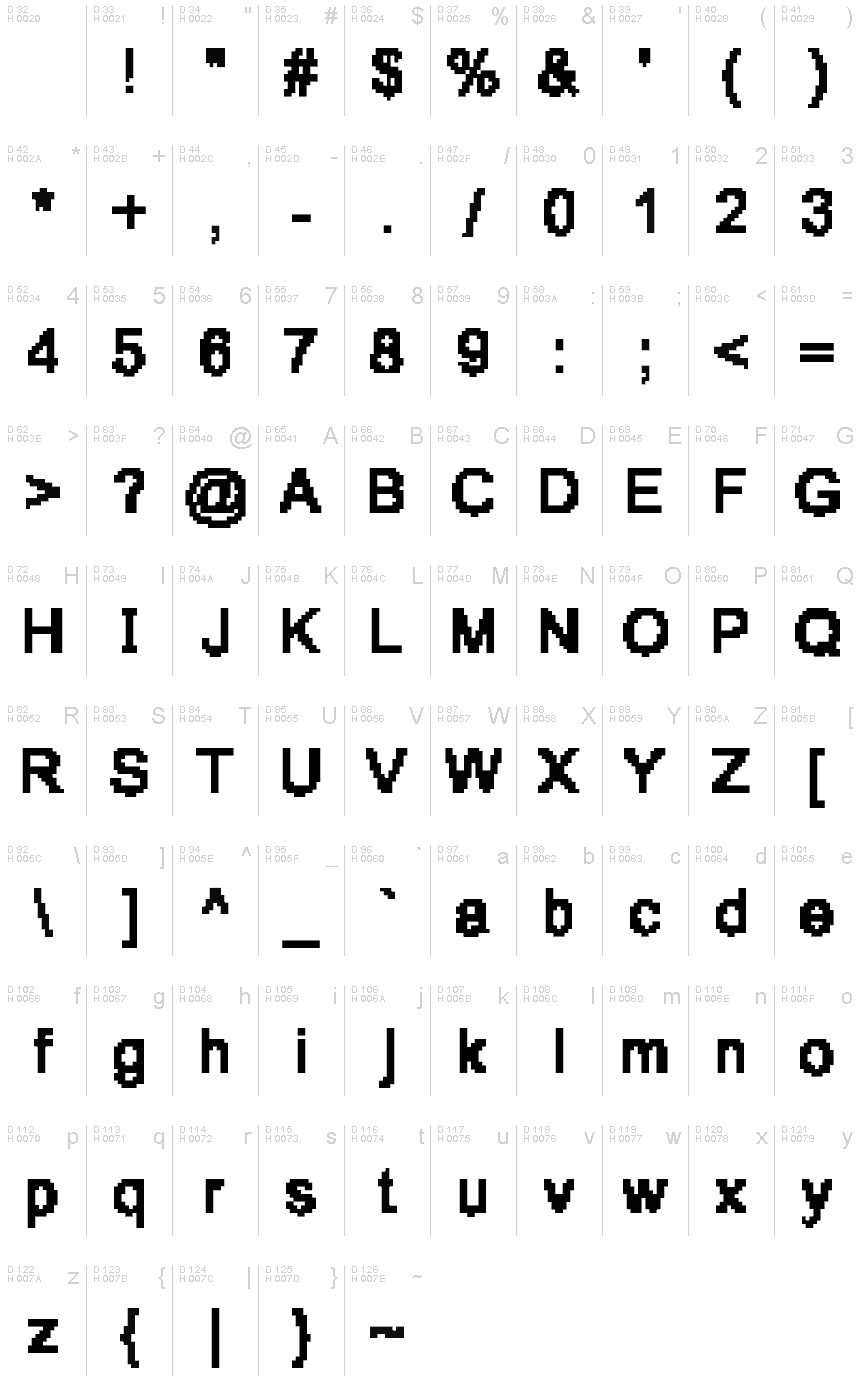
PixelGrunge
"Pixel Grunge" is a bold, pixelated display font that exudes a distinct techno flair. Designed by Ren Zarate, this font showcases a striking visual aesthetic, with its sharply defined edges and gritty, distressed appearance. The pixelated effect lends it a retro-futuristic vibe, making it an ideal choice for a wide range of design applications, from eye-catching posters and album covers to sleek user interfaces and gaming assets.
Its unique style and versatility make "Pixel Grunge" a compelling option for designers seeking to add a touch of digital grit and avant-garde charm to their projects.
Better in Small Sizes